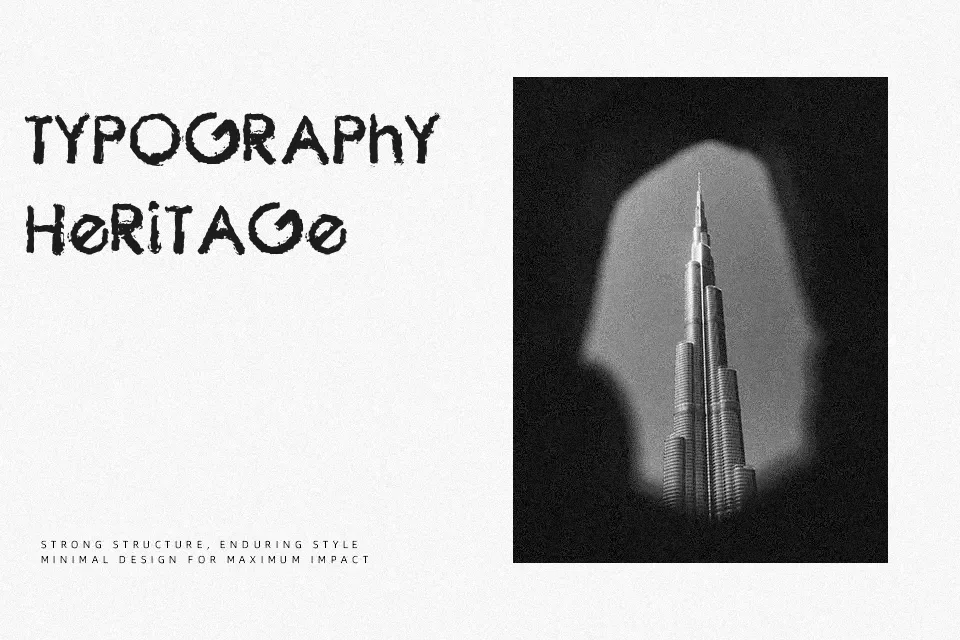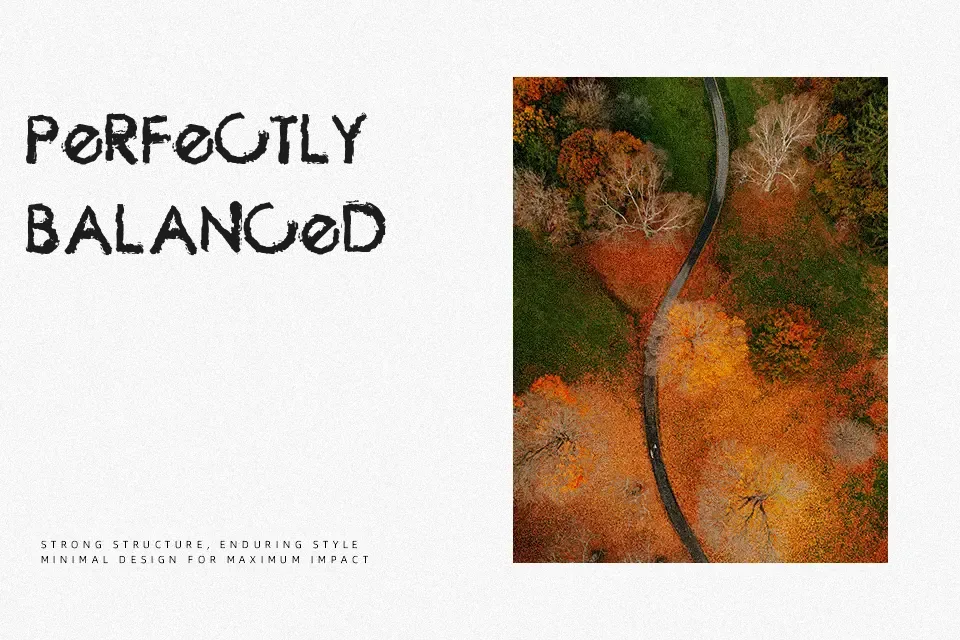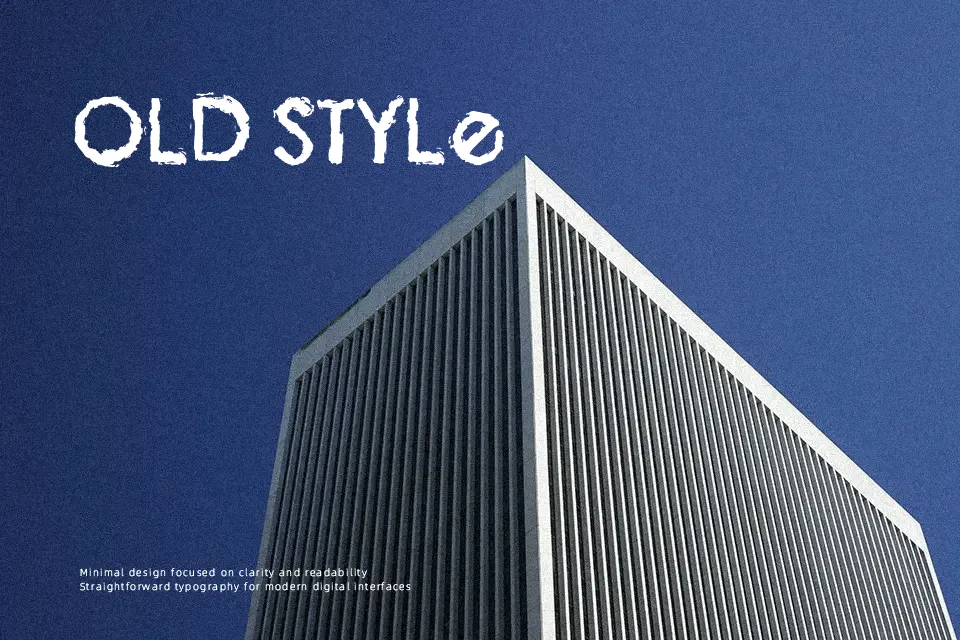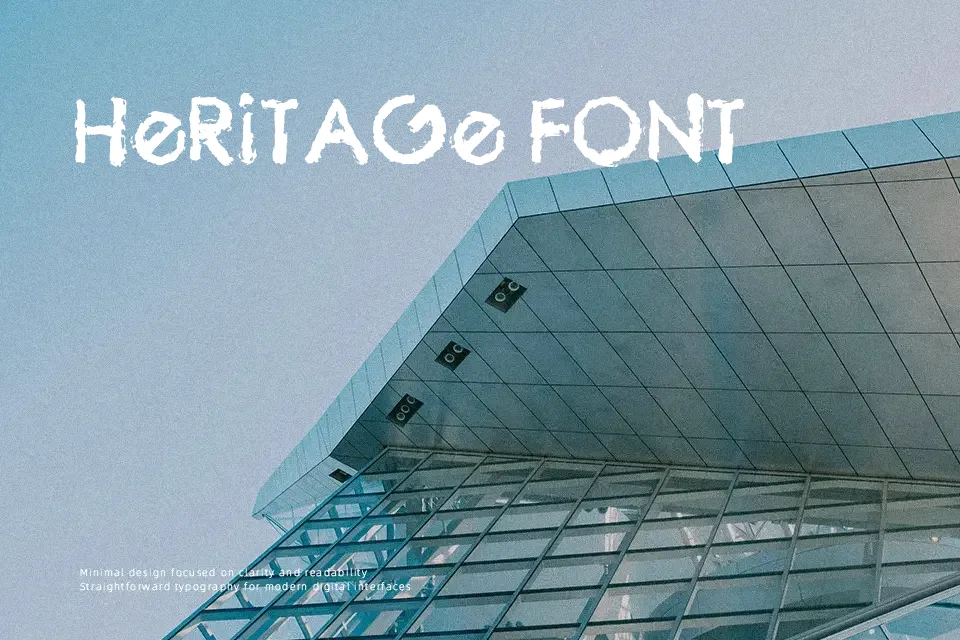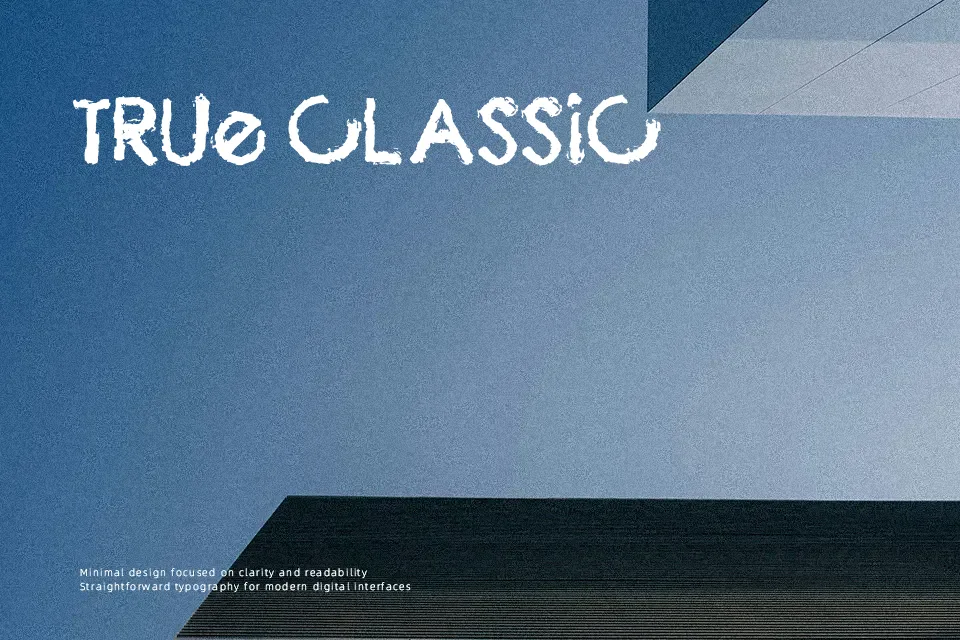
The Biz Font
The Biz Font introduces an aggressively distressed display style defined by eroded interior textures, sturdy block proportions, and irregular perimeter wear. Solid rectangular foundations anchor each glyph, while balanced tracking preserves immediate character separation in short, punchy headings. Because heavy surface destruction diminishes subtle letterform distinctions, the typeface functions poorly across continuous editorial columns or compact interface captions. It achieves its strongest impact when deployed on screen-printed band tees, industrial packaging headers, or festival billboards where raw energy takes precedence over fine typographic subtlety.
punk rock concert posters, streetwear apparel graphics, skate deck typography, urban festival banners
long paragraph text, mobile app interface labels, legal disclaimers, dense corporate reports
Perfect for branding, headline, and music, with a dark and decorative style.